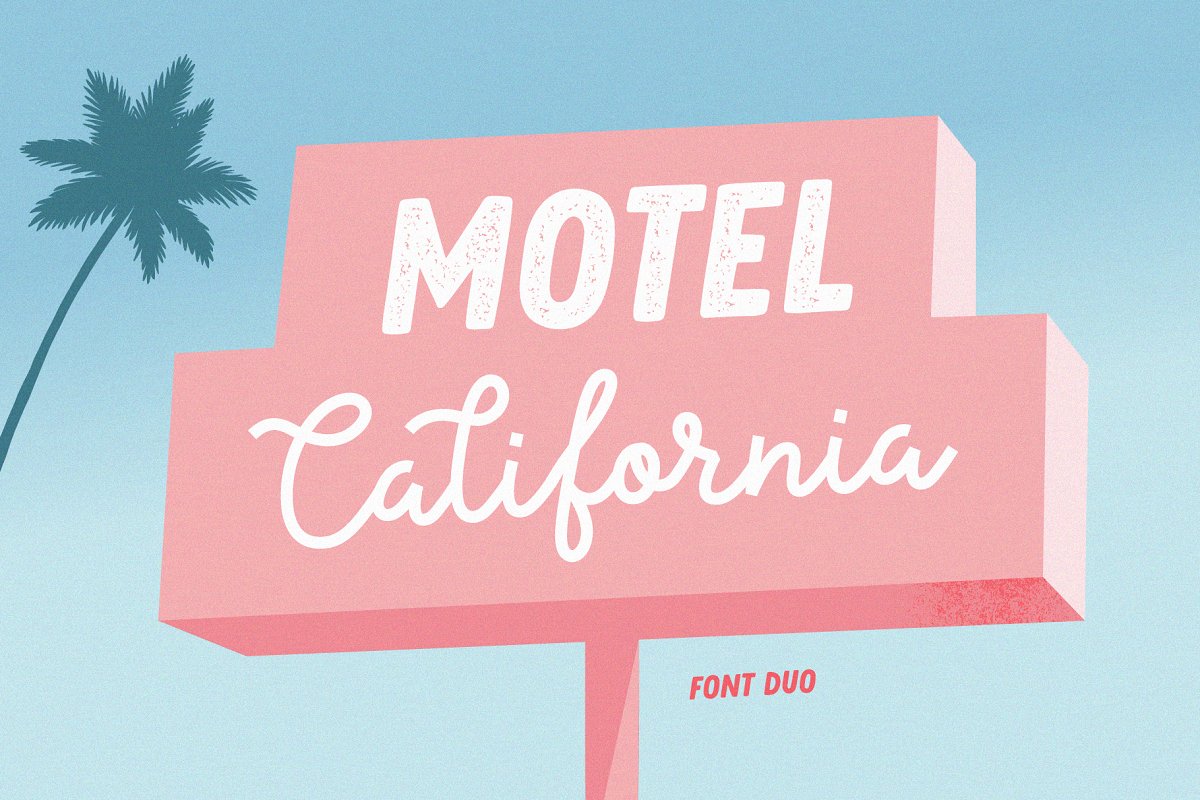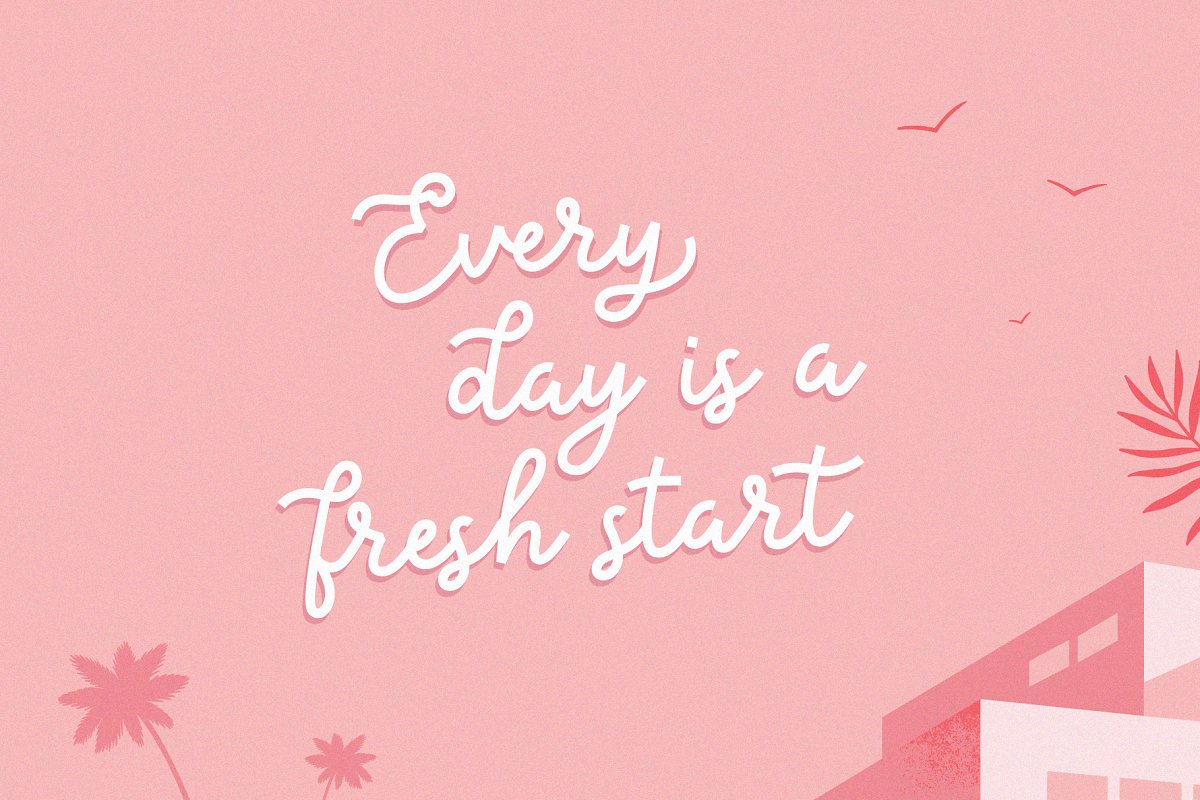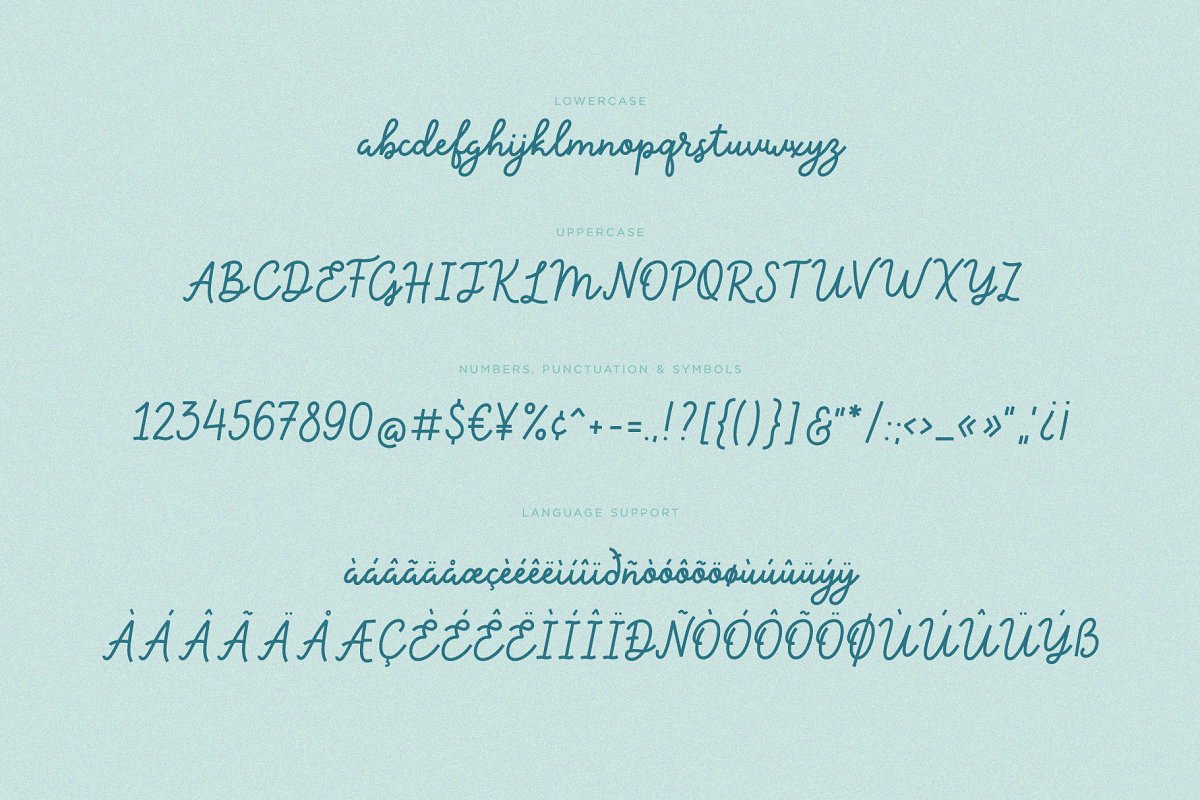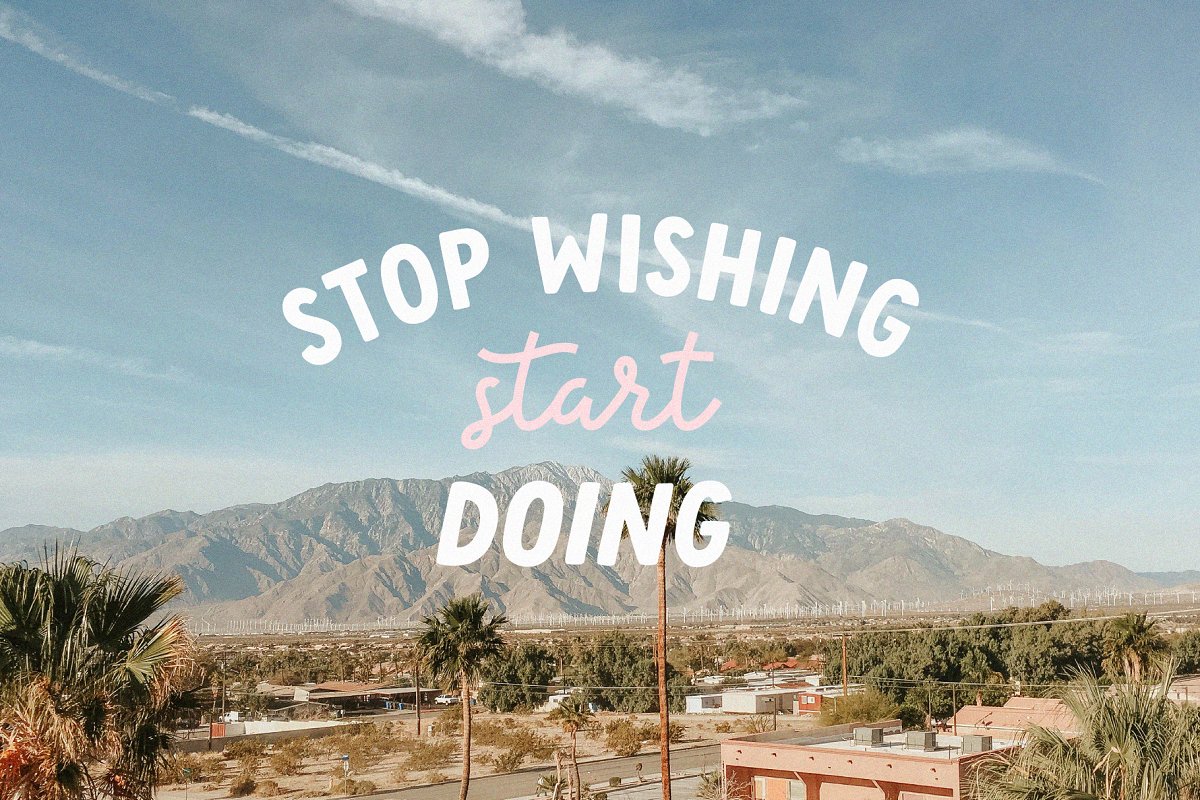
Motel California | Font duo Free Download
About the Motel California | Font duo
Motel California will be perfect for books, greeting cards, logos, posters or anything that requires a fun and happiness look!What’s inside:Motel California-Script, otfMotel California, otfMotel California-Textured, otfMotel California-Italic, otfMotel California-ItalicTextured, otf20 elements (Ai, png)5 pre-made backgrounds (Ai, Jpeg)If you have any questions, please contact me directly: ang